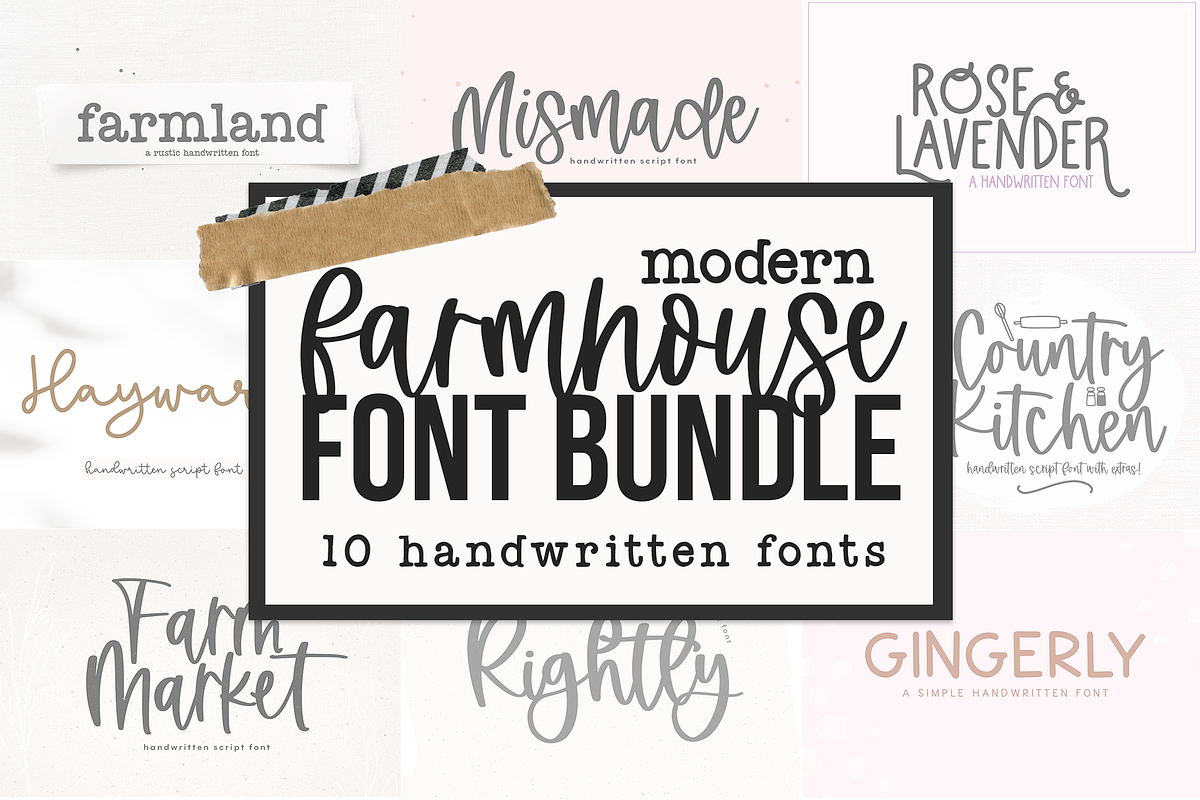
Modern Farmhouse Font Bundle Free Download
Modern Farmhouse Font Bundle Free Download is a curated collection of fonts that combine rustic charm with modern elegance. Featuring a mix of handwritten, serif, and display fonts, this bundle is perfect for creating rustic branding, farmhouse-style designs, invitations, home décor, and more.
With its variety of styles, including bold, script, and sans-serif options, Modern Farmhouse Font Bundle Free Download allows you to mix and match for unique design projects that evoke warmth, authenticity, and contemporary appeal.